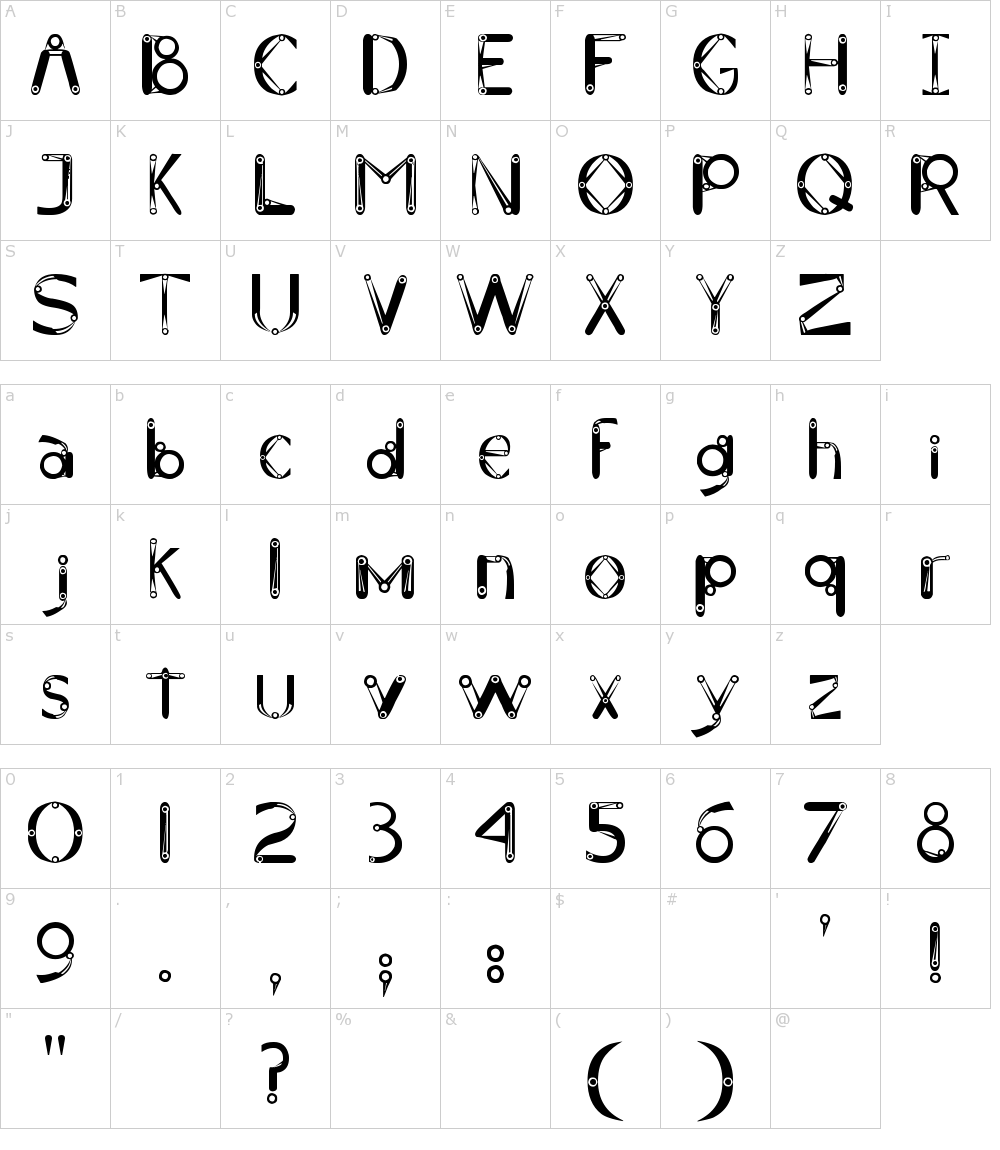
Mechanical free regular otf ttf waterfall 52 characters about mechanical is a font display is made by hand, inspired by classic posters. Mechanical is a font display is made by hand, inspired by classic posters.comes with uppercase, lowercase, numerals, punctuations and so many variations on each character. Mechanical by mechanical is a product of.
Mechanical Free Regular Otf Ttf Waterfall 52 Characters About Mechanical Is A Font Display Is Made By Hand, Inspired By Classic Posters.